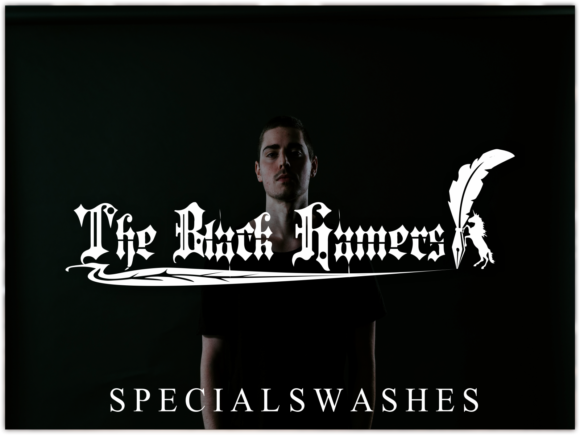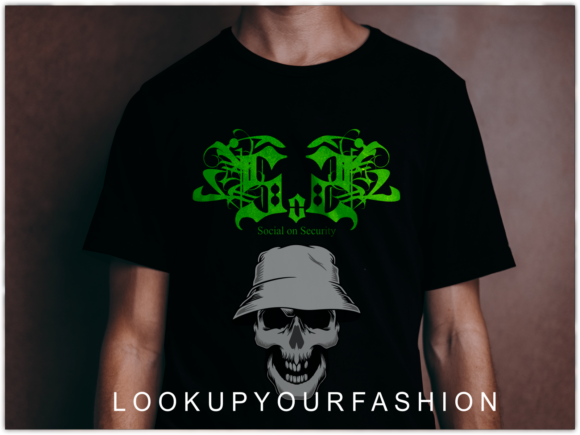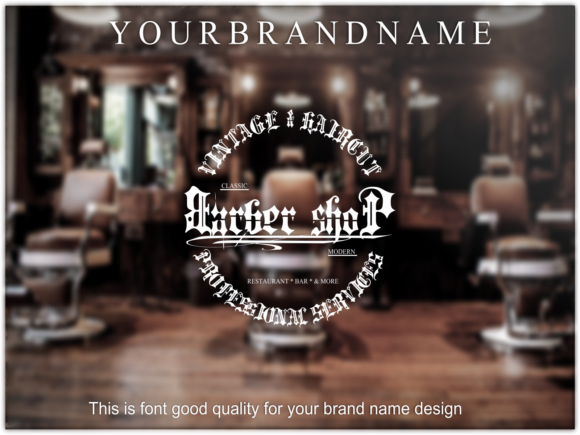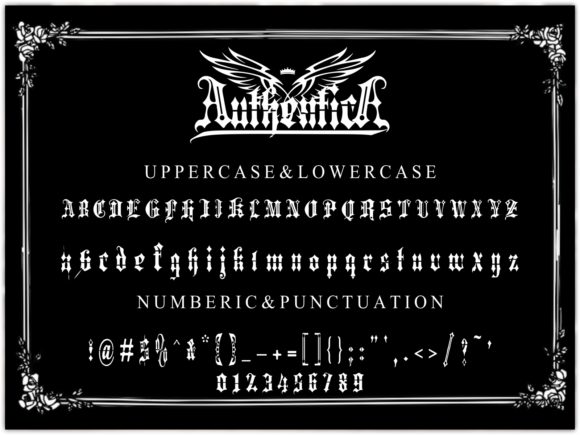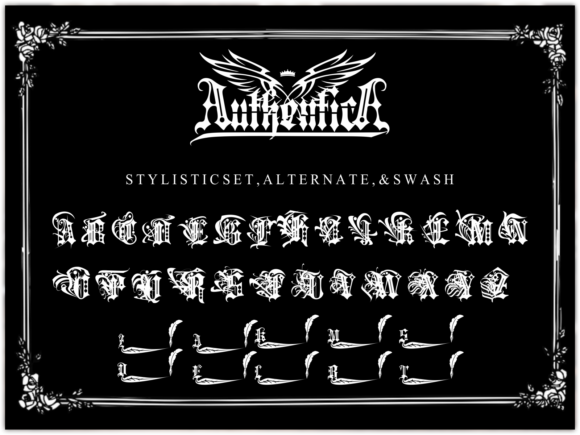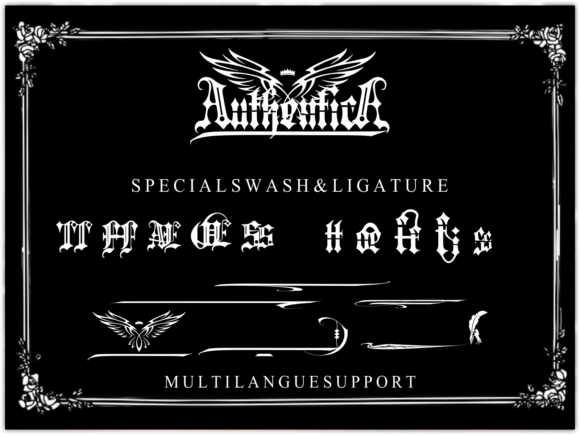
Introducing Authentica Font: The Ultimate Blackletter Font for Unique Designs
Are you a designer or crafter looking for a font that can add a touch of vintage charm to your creations? Look no further than Authentica Font, a stunning blackletter font inspired by vintage signs and retro-style labels. With its unique and elegant design, Authentica Font is the perfect choice for creating posters, logos, labels, packaging, and much more!
The Inspiration Behind Authentica Font
Authentica Font draws inspiration from the classic blackletter fonts of the past, with a modern twist. Its design is influenced by vintage signs and retro-style labels, giving it a distinctive and nostalgic feel. The font’s creator aimed to capture the essence of traditional blackletter fonts while making it more versatile and user-friendly. The result is a font that is both elegant and bold, perfect for making a statement in your designs.
Key Features of Authentica Font
So, what makes Authentica Font so special? Here are some of its key features:
- Blackletter font: Authentica Font is a true blackletter font, with intricate and ornate letterforms that evoke a sense of history and tradition.
- Vintage inspiration: The font’s design is inspired by vintage signs and retro-style labels, giving it a unique and nostalgic feel.
- PUA encoded: Authentica Font is PUA (Private Use Area) encoded, which means you can access all of the glyphs and swashes with ease. This makes it easy to use and customize the font to suit your needs.
- Highly versatile: Authentica Font is perfect for creating a wide range of designs, from posters and logos to labels and packaging.
Uses for Authentica Font
So, what can you create with Authentica Font? The possibilities are endless! Here are some ideas to get you started:
- Posters: Create eye-catching posters for events, promotions, or advertising campaigns.
- Logos: Design unique and memorable logos for businesses, products, or services.
- Labels: Create custom labels for products, packaging, or crafts.
- Packaging: Use Authentica Font to create stunning packaging designs for products, gifts, or treats.
- Crafting: Add a touch of elegance to your crafting projects, such as scrapbooking, card-making, or journaling.
Why Choose Authentica Font?
With so many fonts available, why choose Authentica Font? Here are just a few reasons:
- Unique design: Authentica Font has a distinctive and elegant design that will set your creations apart from the rest.
- High-quality encoding: The font’s PUA encoding ensures that you can access all of the glyphs and swashes with ease.
- Versatility: Authentica Font is perfect for creating a wide range of designs, from posters and logos to labels and packaging.
- Ease of use: The font is easy to use and customize, even for those with limited design experience.
In conclusion, Authentica Font is a stunning blackletter font that is perfect for designers and crafters looking to add a touch of vintage charm to their creations. With its unique design, PUA encoding, and versatility, Authentica Font is the ultimate choice for creating unique designs like posters, logos, labels, packaging, and much more! So why wait? Download Authentica Font today and start creating your own stunning designs!